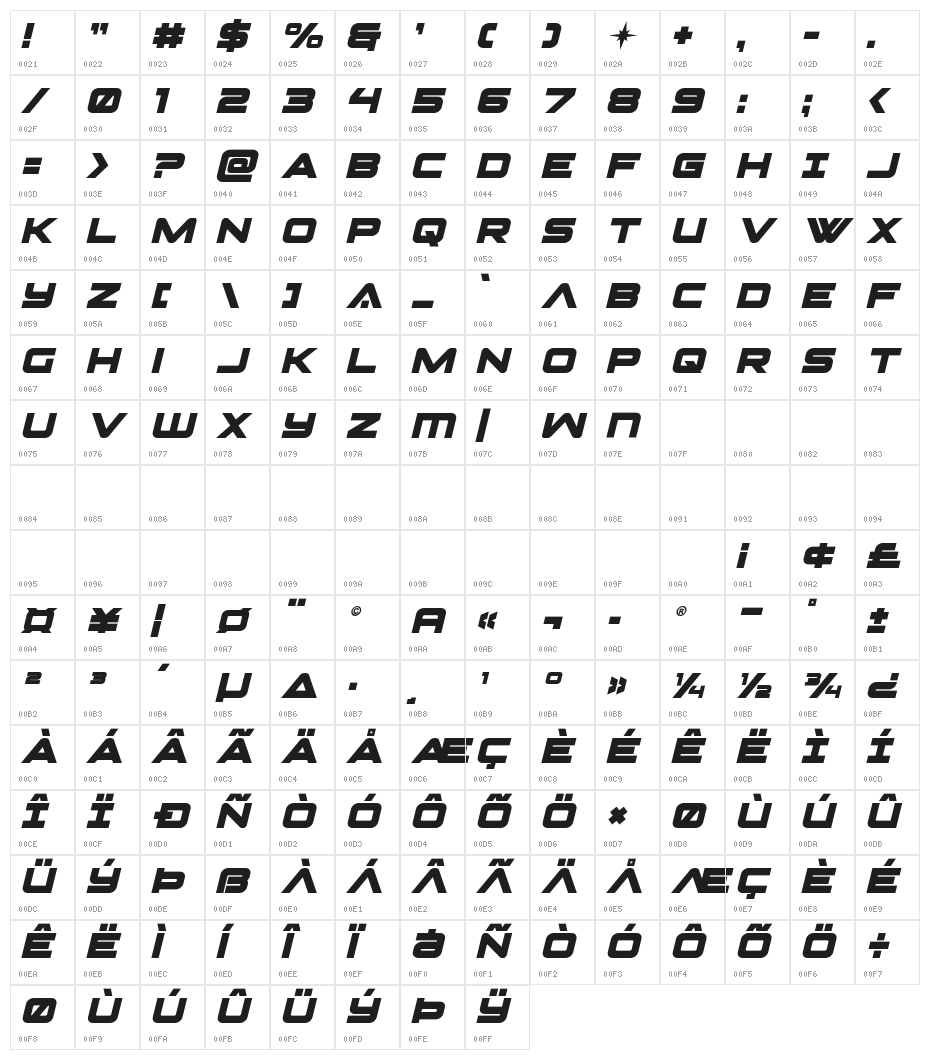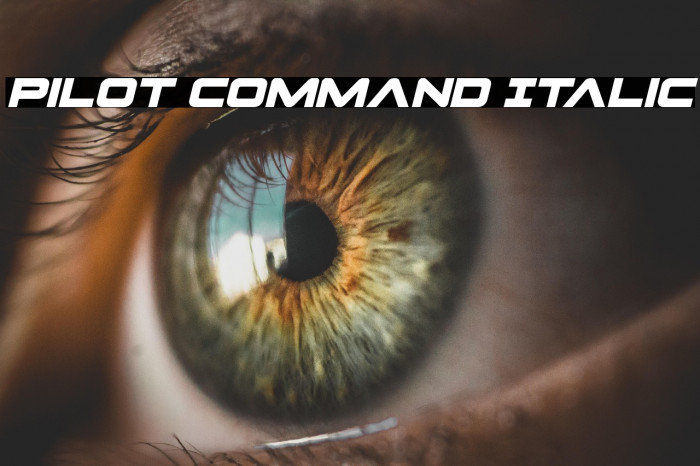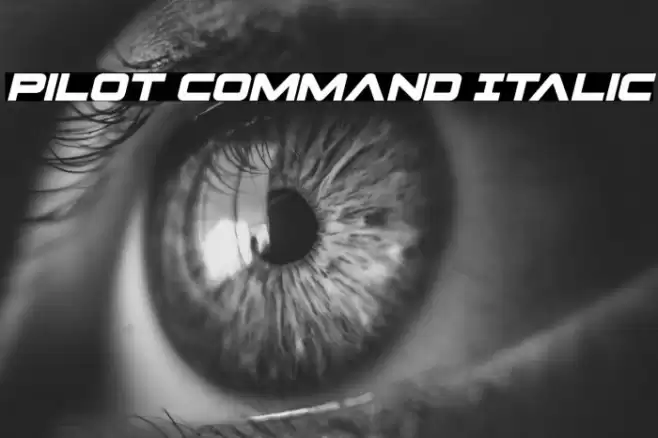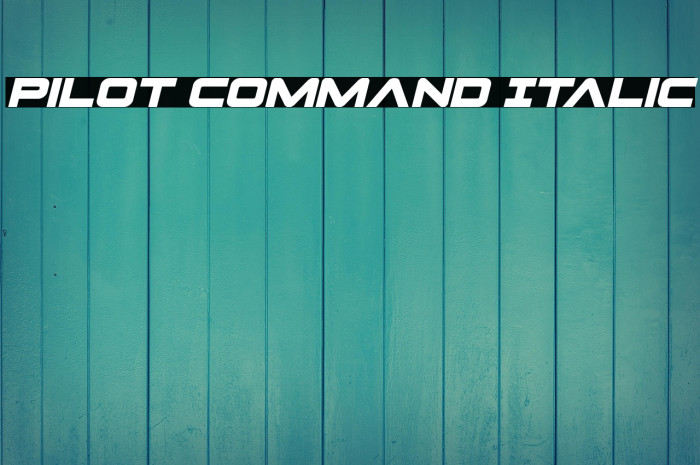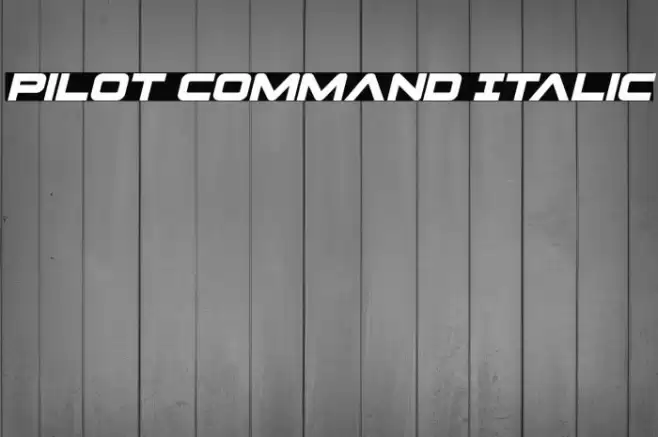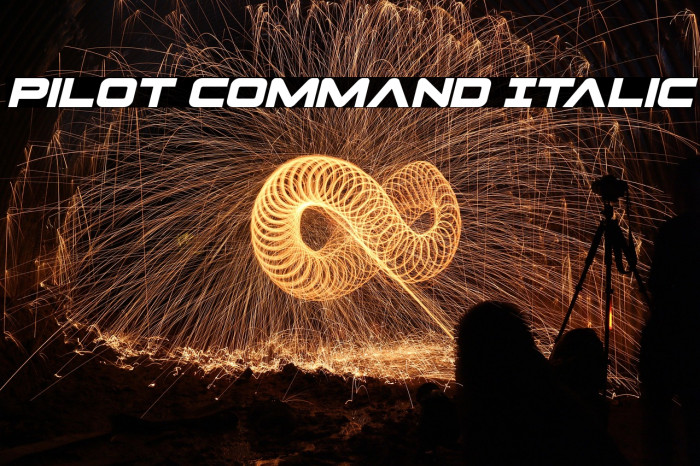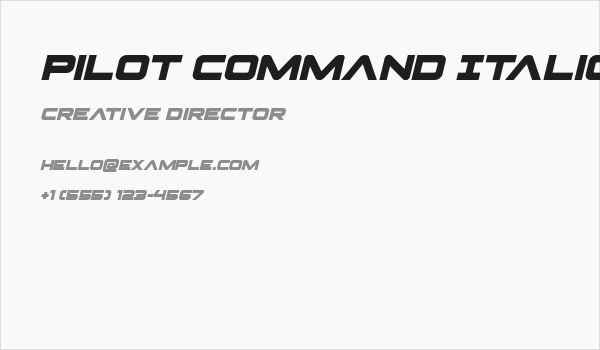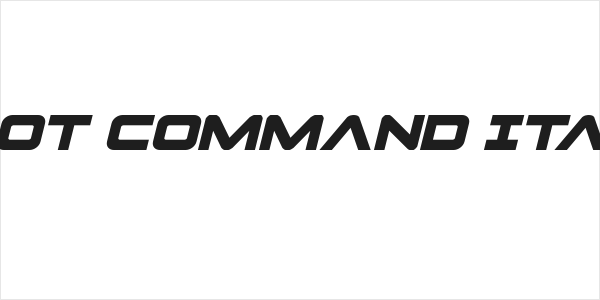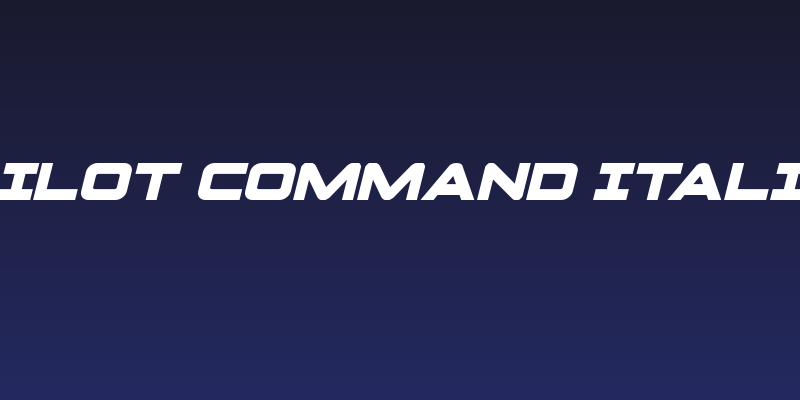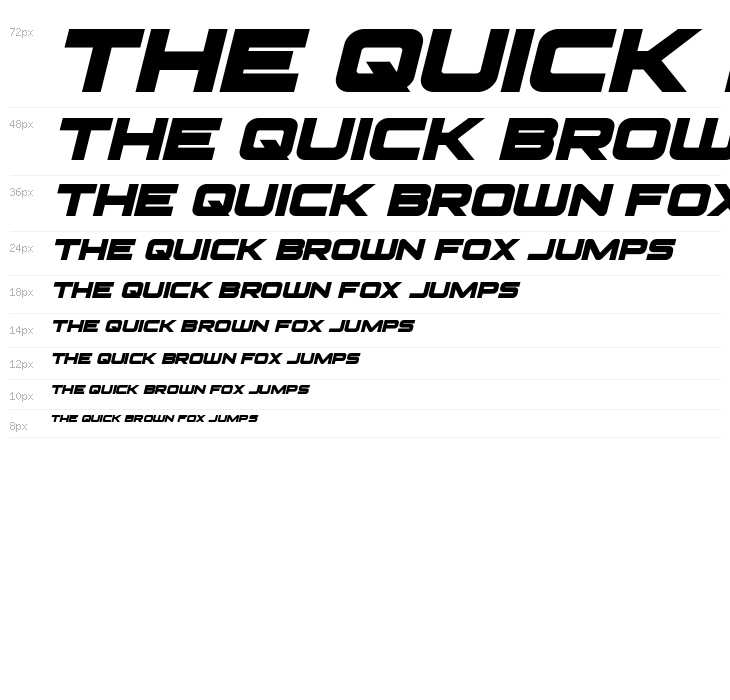
Pilot Command Italic Font
Pilot Command Italic Description
This font exhibits a bold, italicized style with a futuristic and dynamic appearance. The characters are slanted, giving a sense of motion and speed, which is enhanced by the sharp, angular cuts and edges. The uppercase and lowercase letters maintain a consistent style, with a uniform slant and boldness. The numbers and special characters follow the same design principles, ensuring a cohesive look across all glyphs. The font's design is reminiscent of technology and innovation, making it suitable for modern and high-tech applications.
| Proposed Projects | Ideal for technology branding, sports team logos, video game titles, and futuristic-themed posters. |